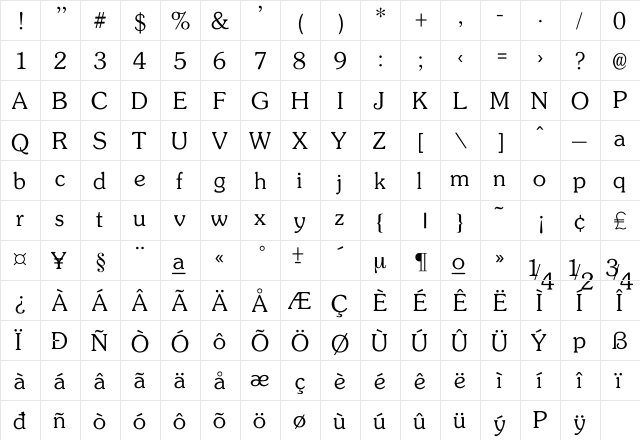
Zipf Light Regular
Design Context for Zipf Light Typeface
Zipf Light takes a measured approach to typography — its balanced proportions and neutral character make it a reliable workhorse for both digital and print work. The delicate stroke weight brings airiness and refinement to layouts.
Pro Tip: Use Zipf Light in both headline and body roles to test its range before committing to a single application.